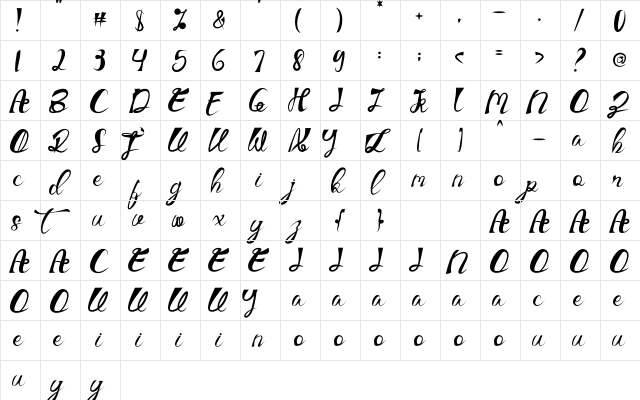
Kreatife Regular
Design Context for Kreatife Typeface
Kreatife is a composed and adaptable typeface that performs quietly and consistently across a wide range of design contexts.